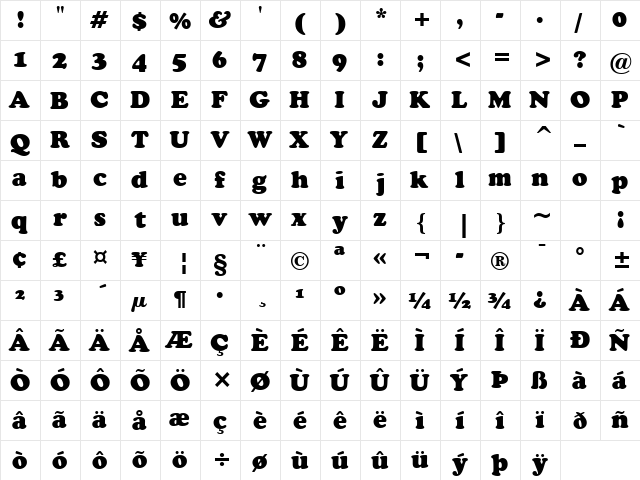
Cooper BlkHd BT Black Font Preview
Cooper BlkHd BT Black
Cooper BlkHd BT Black Font Details
Design Context for Cooper BlkHd BT Typeface
Cooper BlkHd BT takes a measured approach to typography — its balanced proportions and neutral character make it a reliable workhorse for both digital and print work.